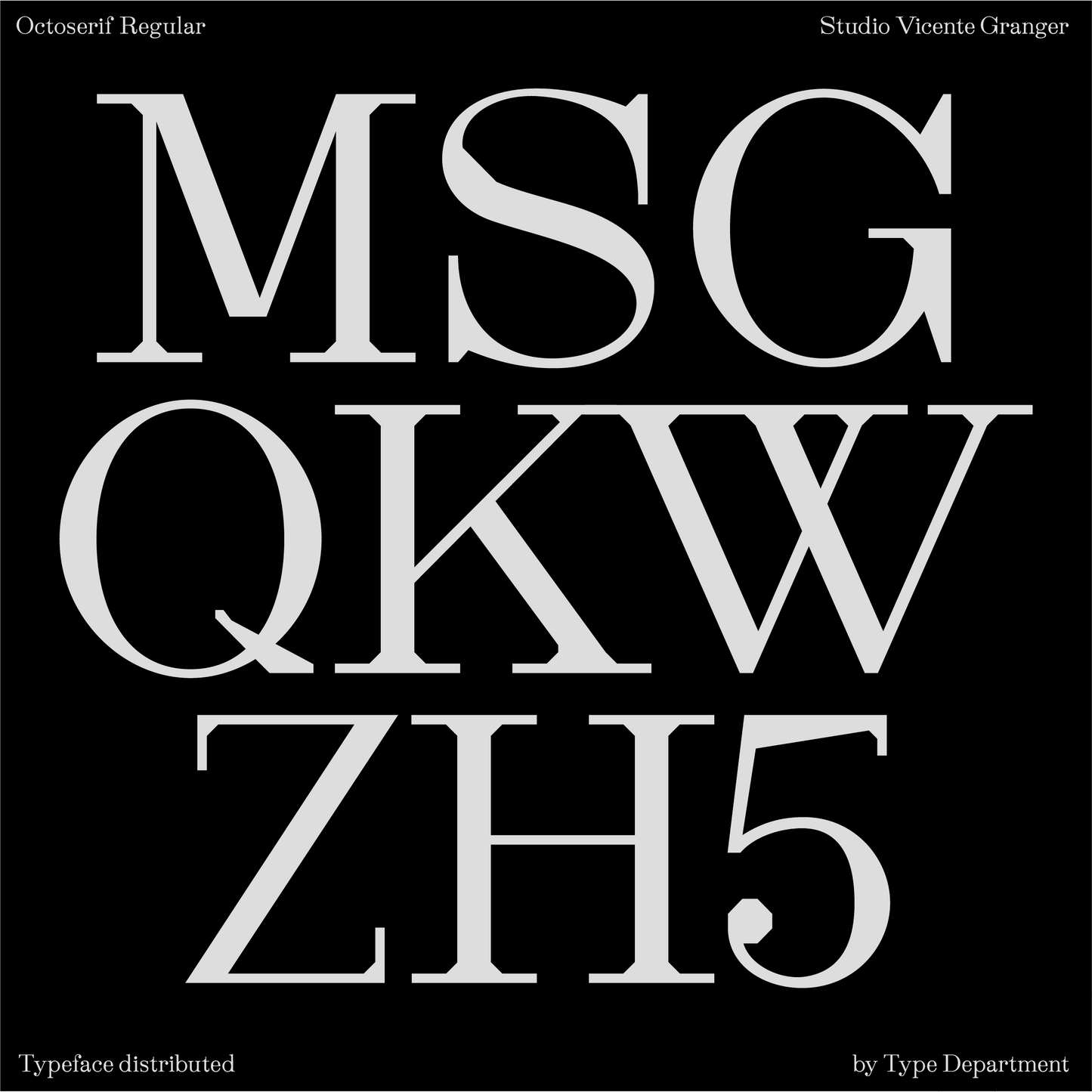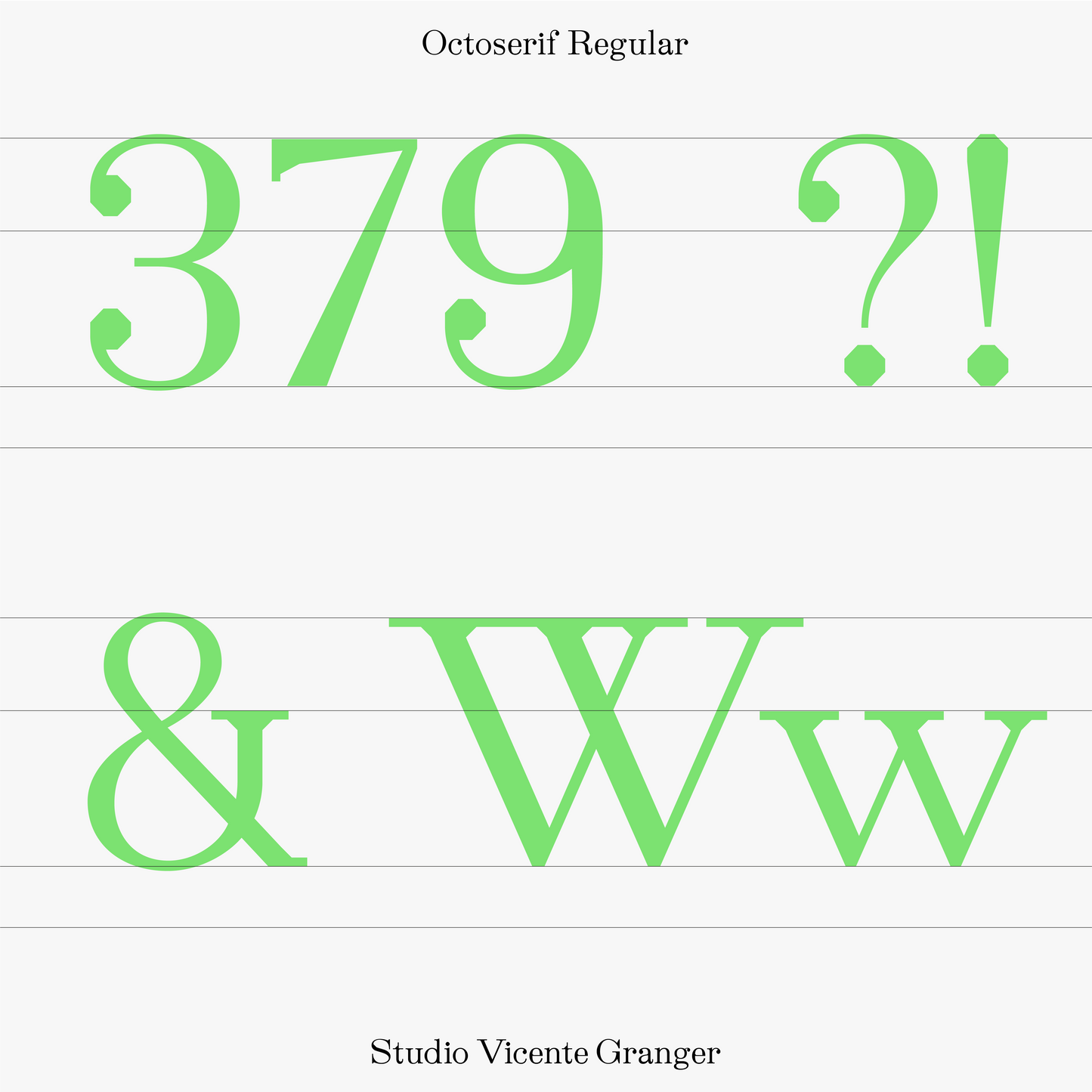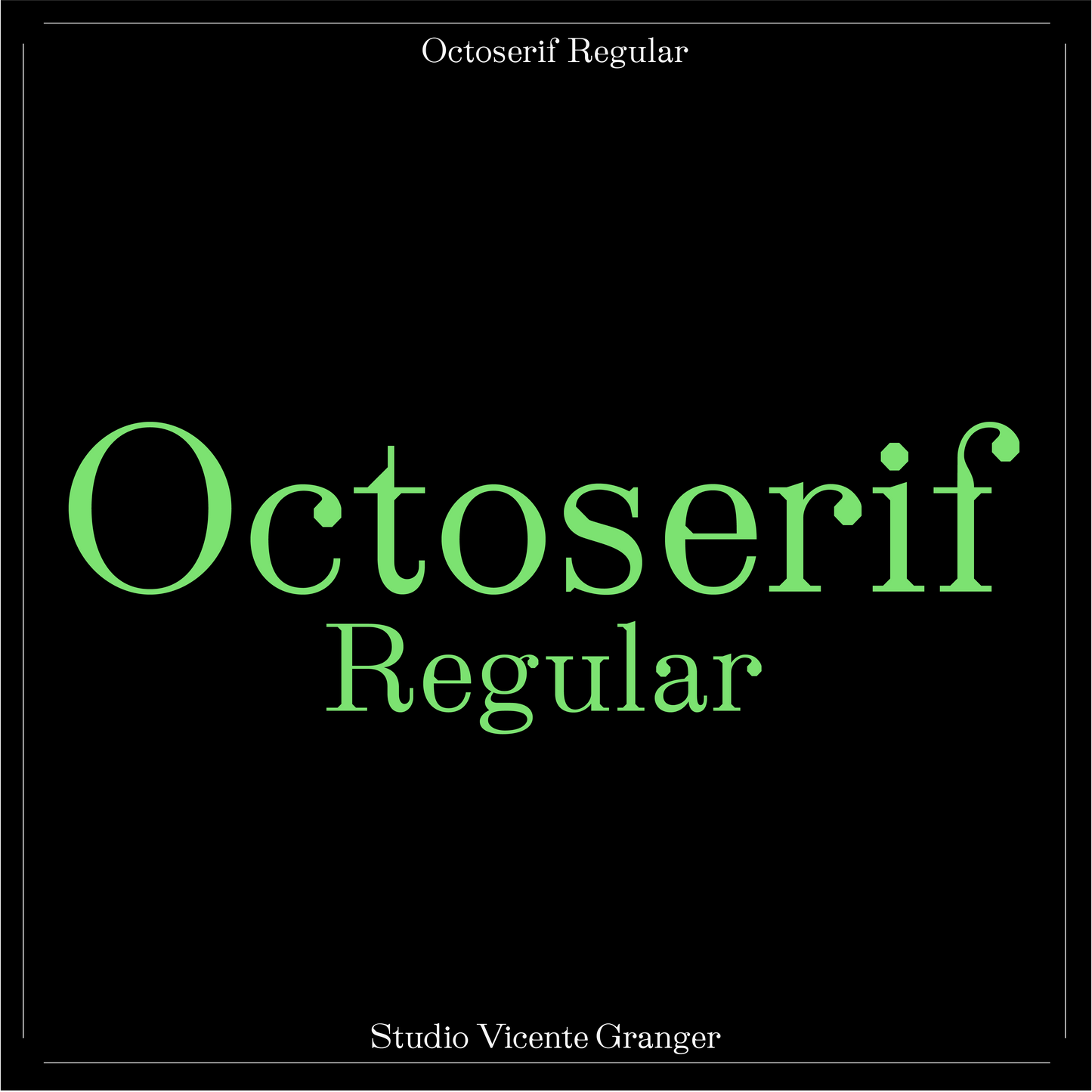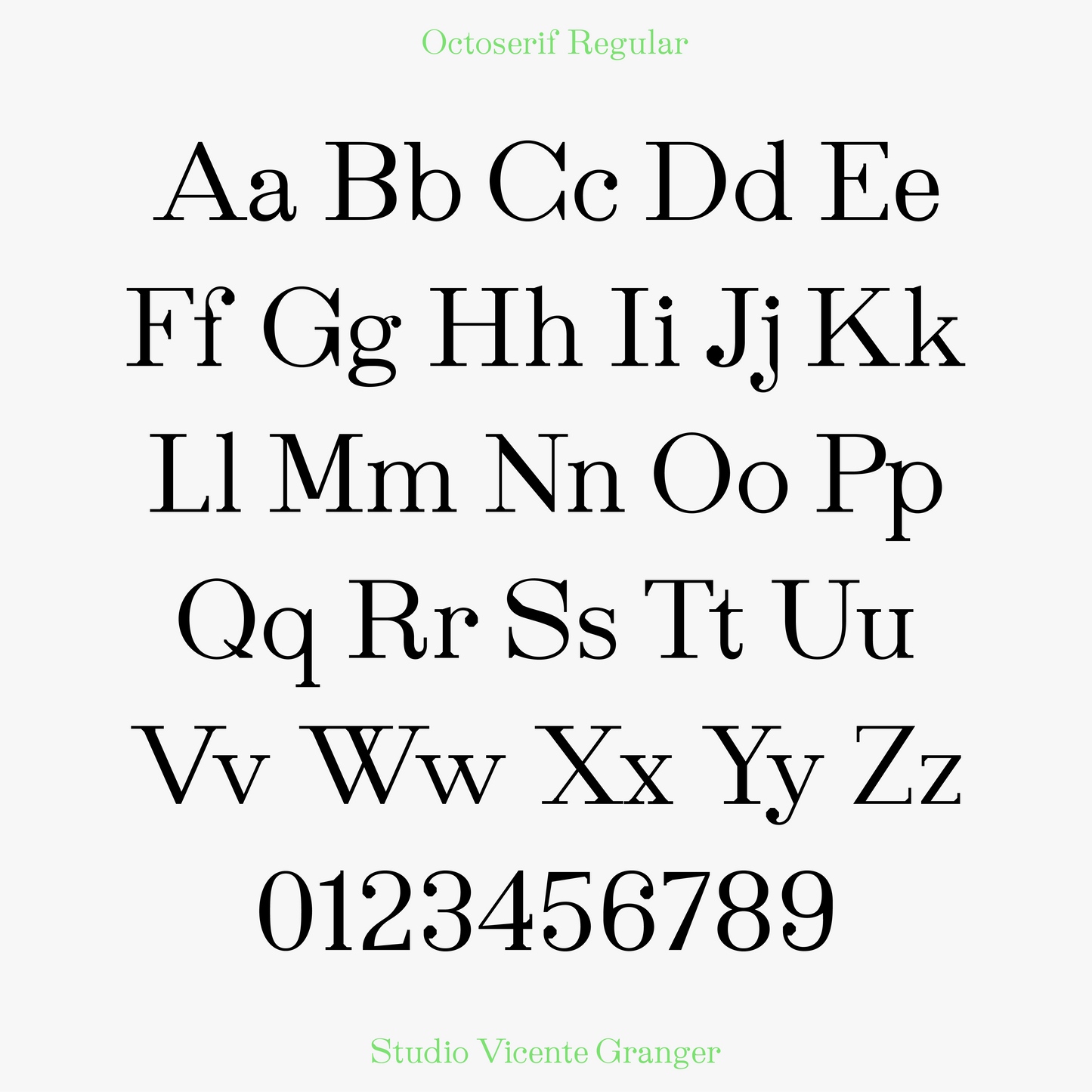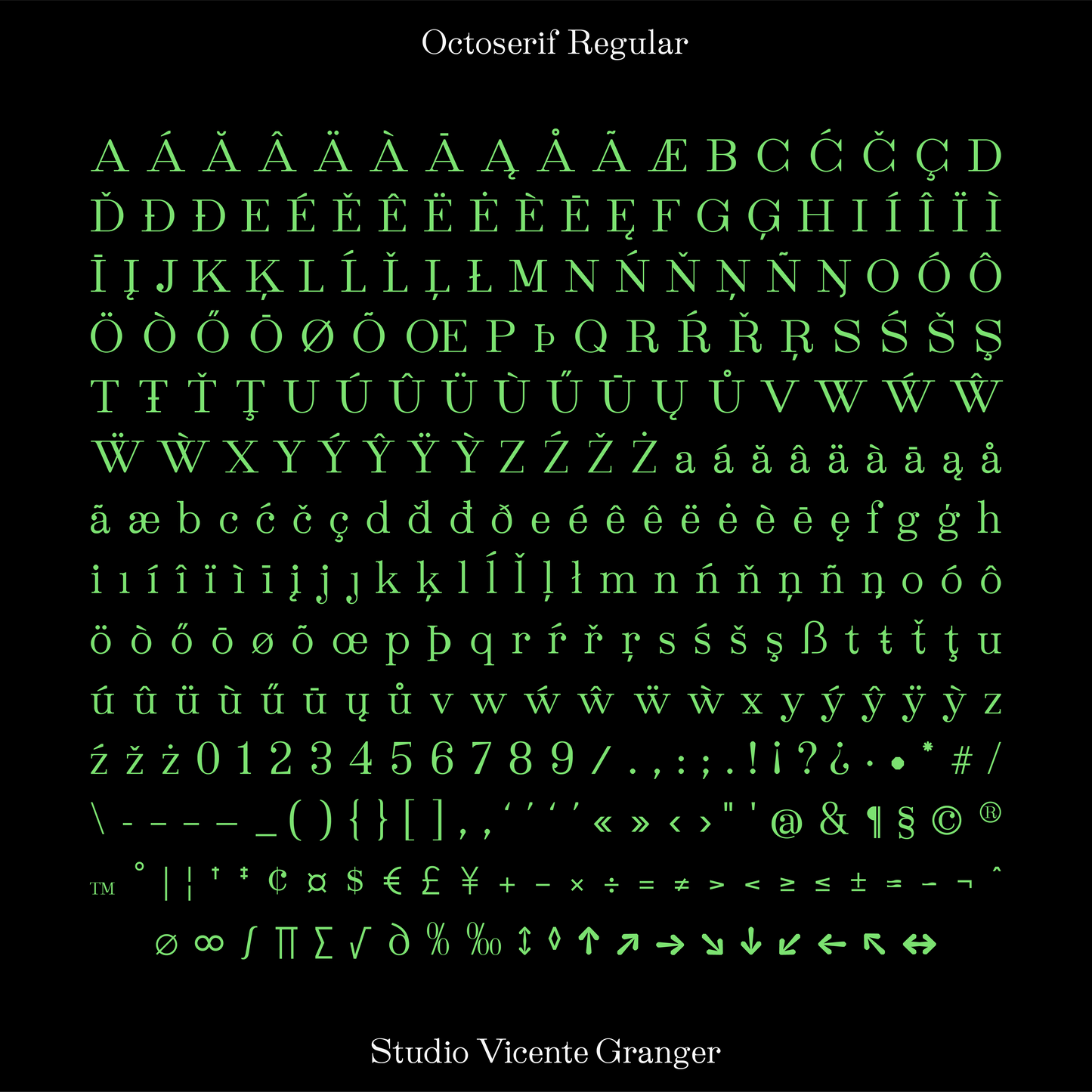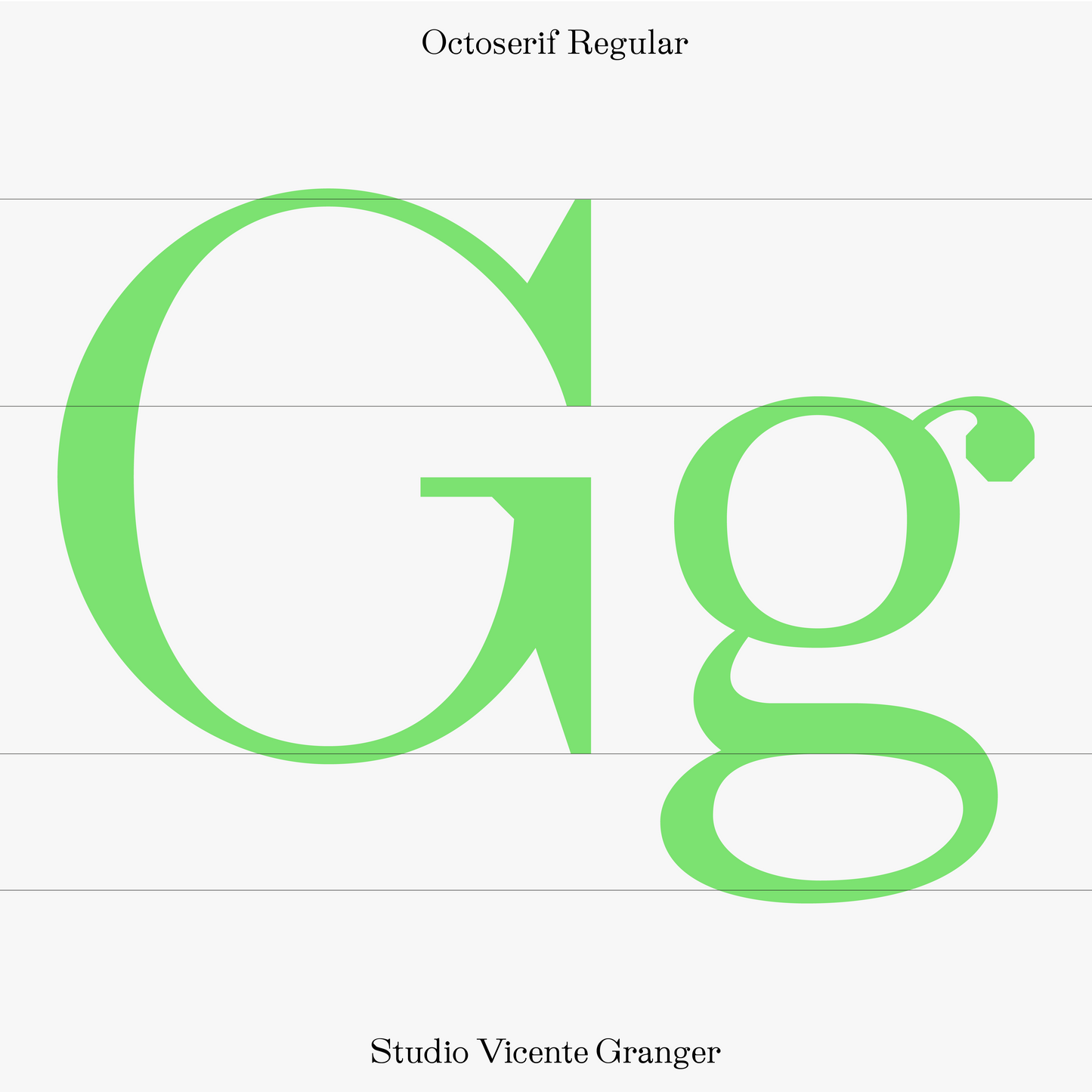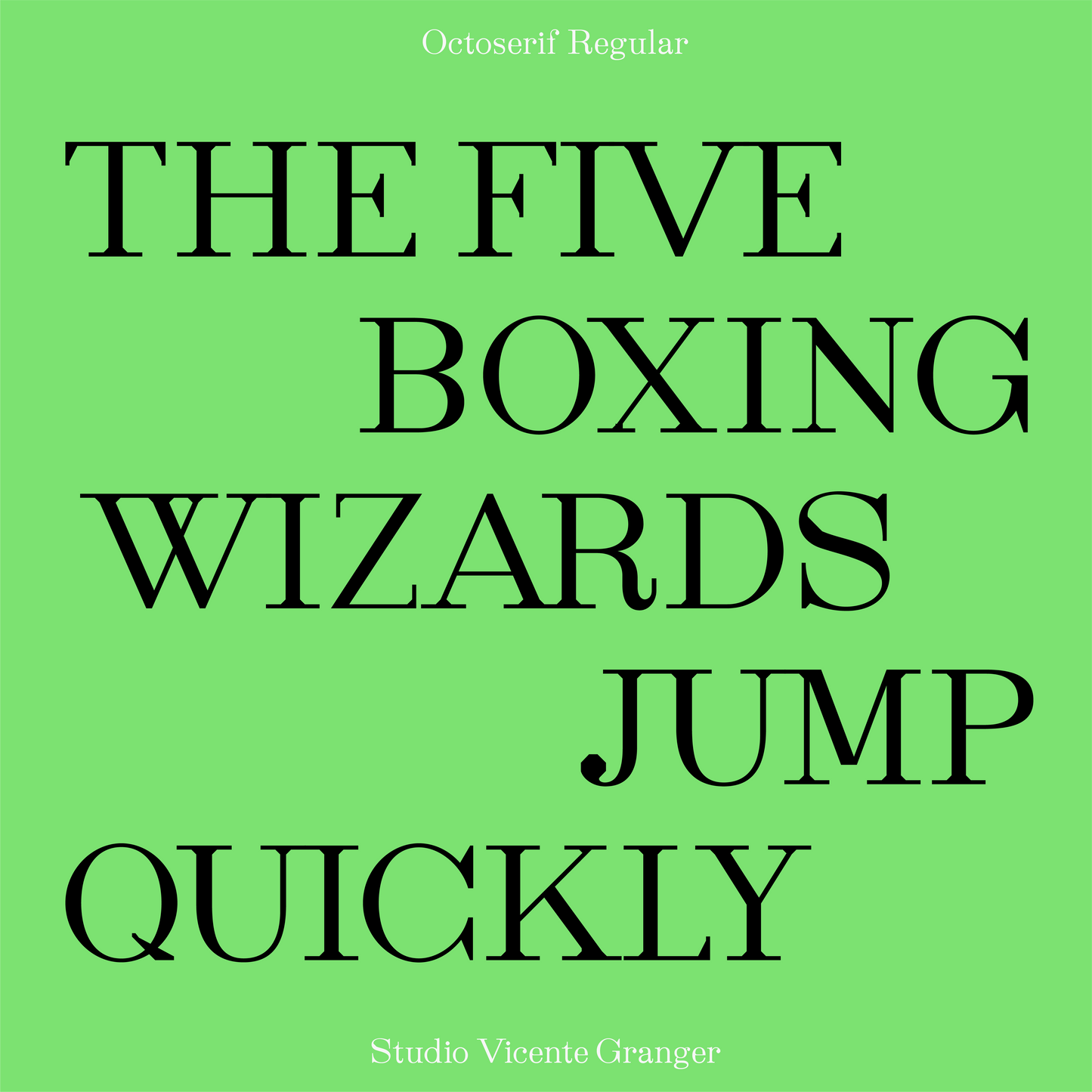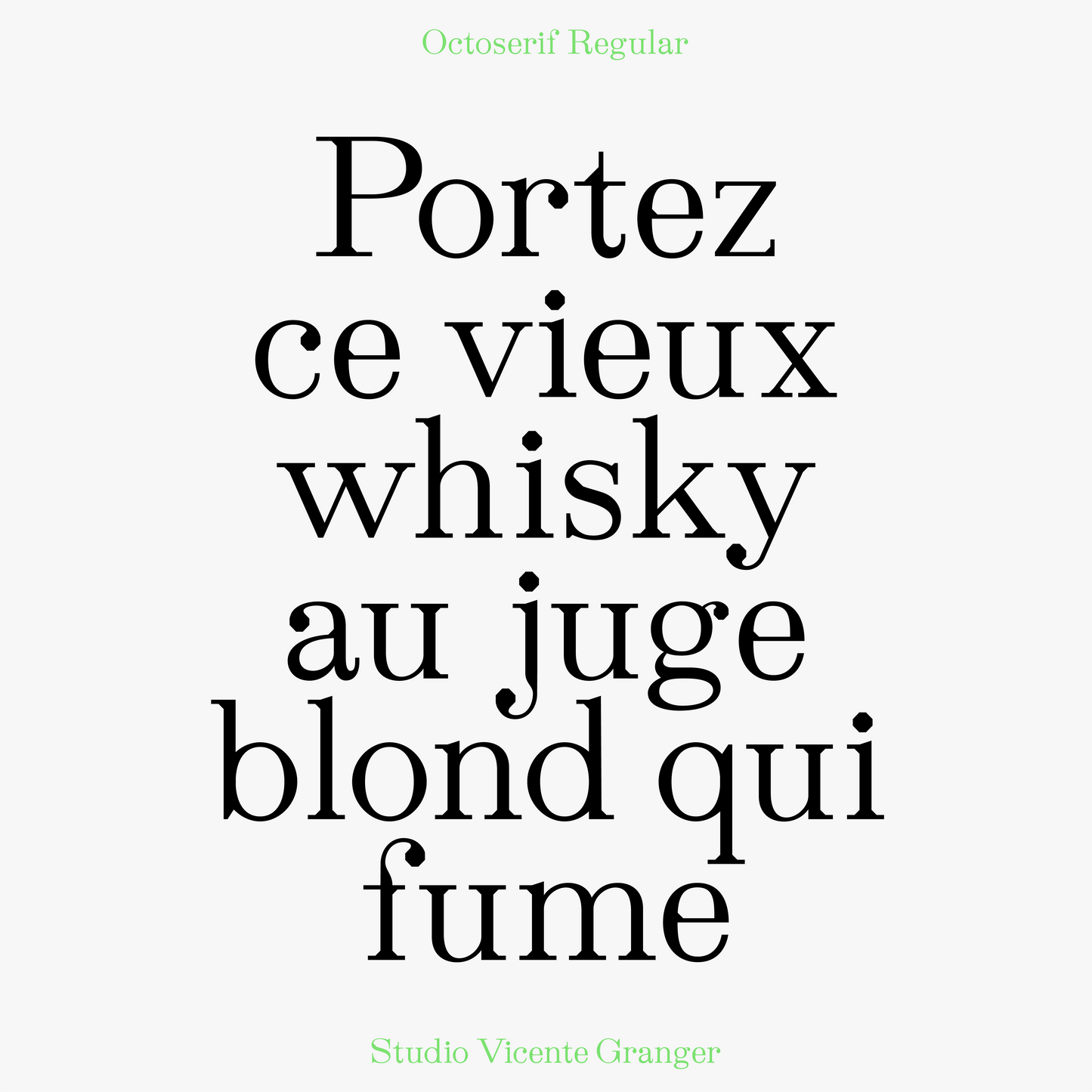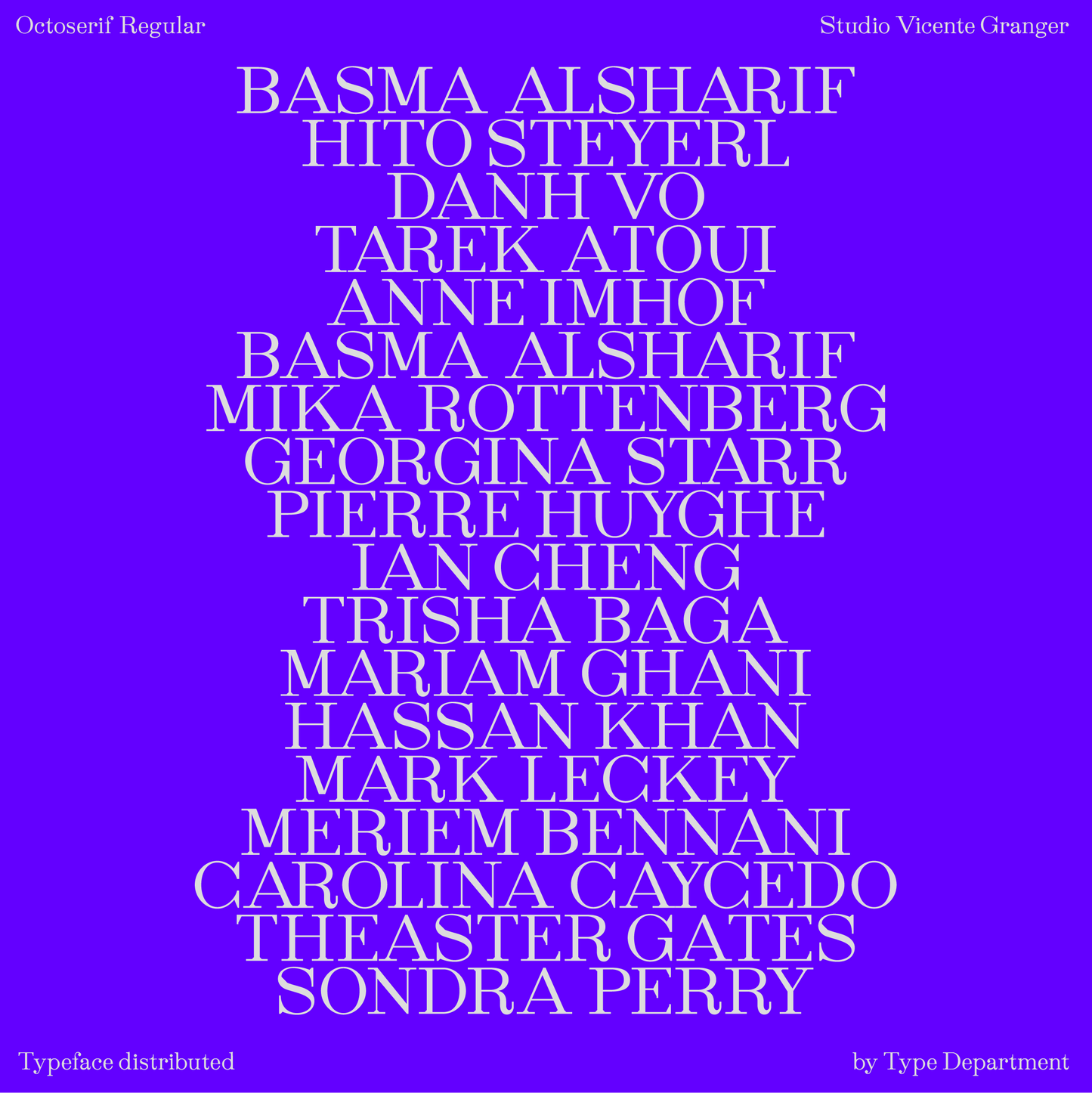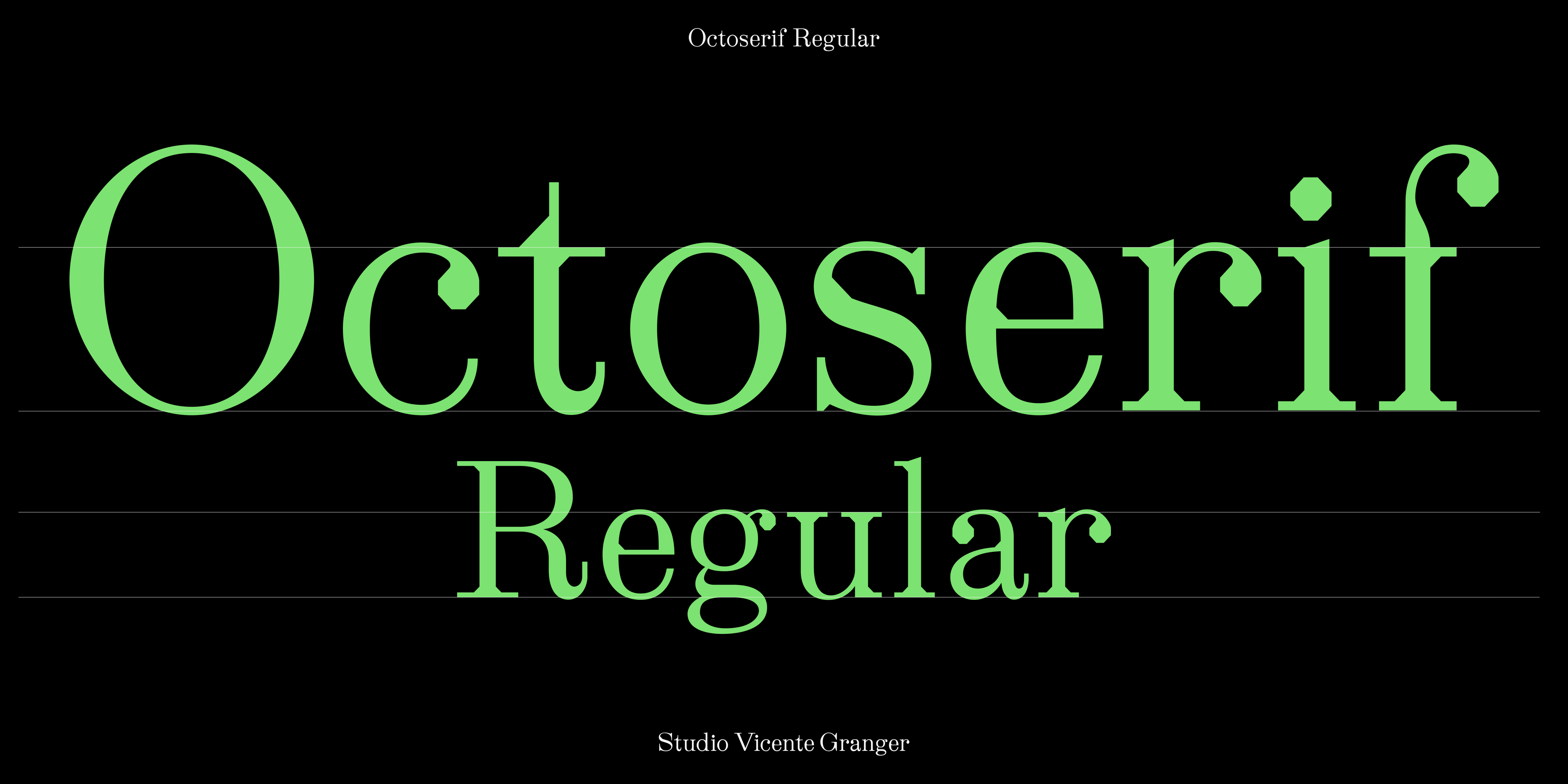
Octoserif
Vicente Granger
Octoserif is a geometric serif typeface designed by Studio Vicente Granger. At first glance, it evokes a classic serif, but its originality lies in the subtle geometry that structures each letter.
Its construction is based on an octagonal logic, visible in its details, sharp terminals, and overall character shape. This blend of formal rigor, almost architectural, and expressiveness makes Octoserif an ideal choice for editorial, branding, or graphic uses where detail matters.